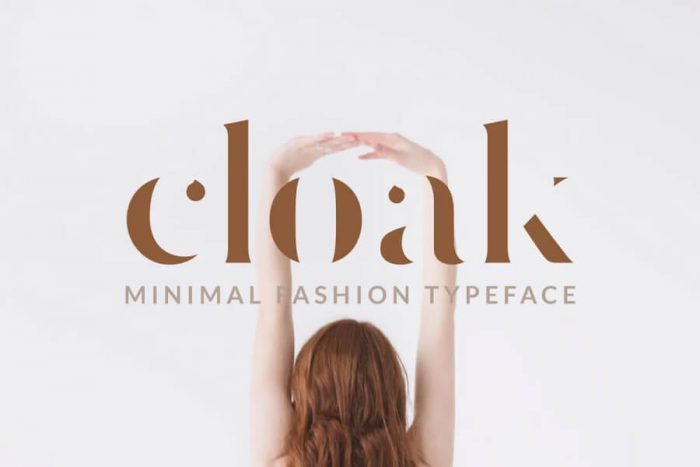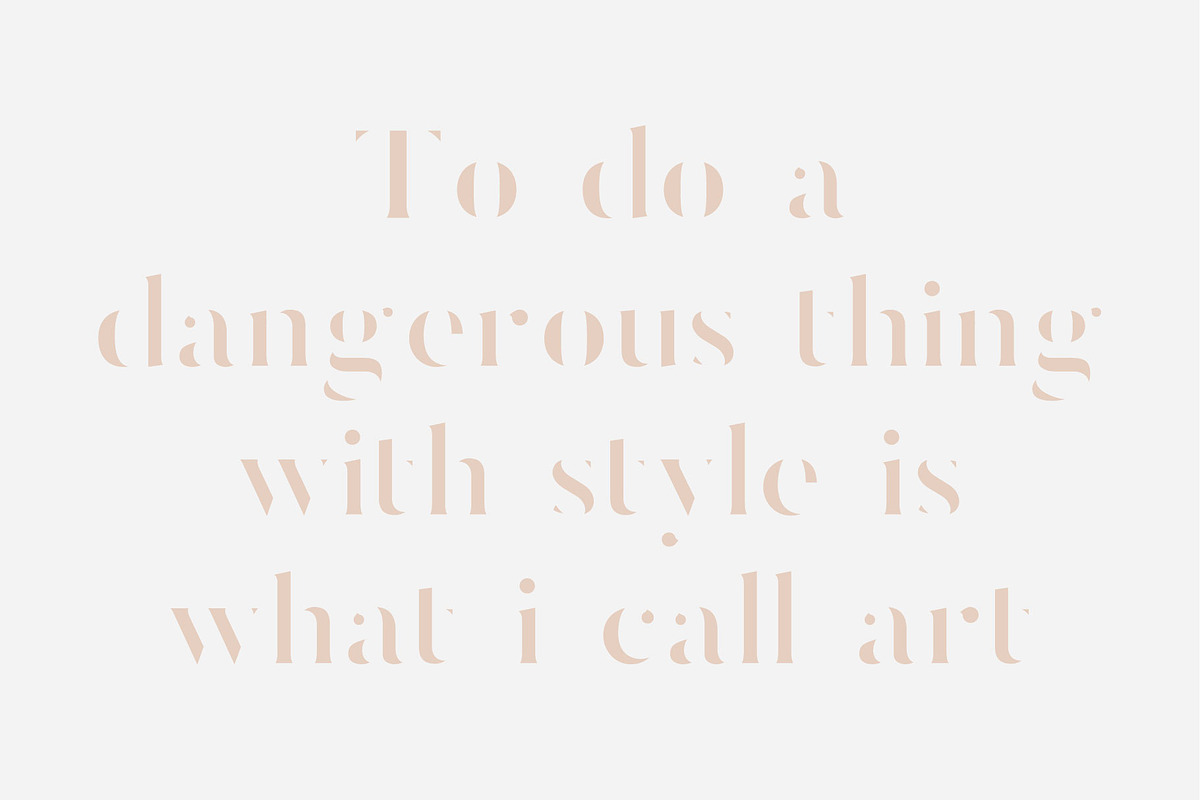
Cloak Font
Cloak mixes the modern and minimal. It’s sharp and clean but the simple curves add a feminine/fashion touch. Great for mastheads, magazines, logos and headers. Gaps in the letterforms work perfectly as a monogram or wordmark. Pairs well with any simple sans serif font like Lato or Proxima Nova. Comes with numbers and symbols.